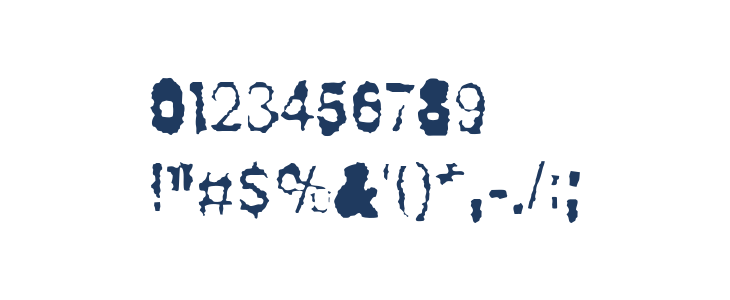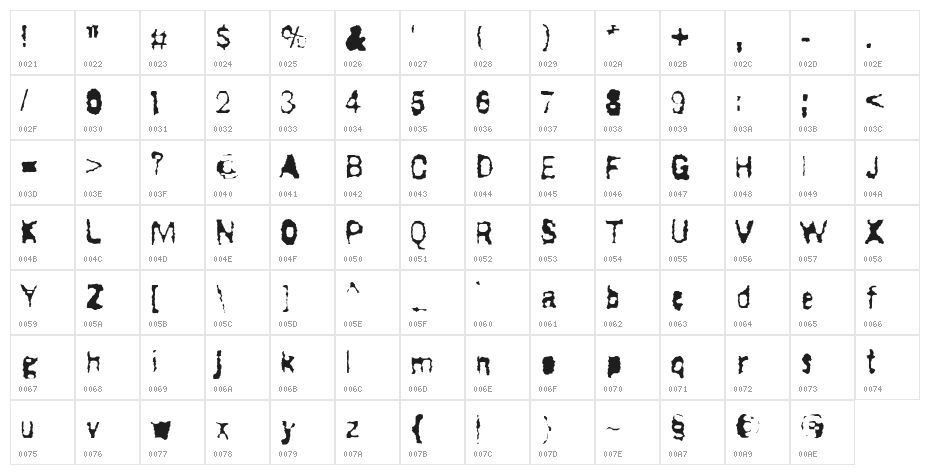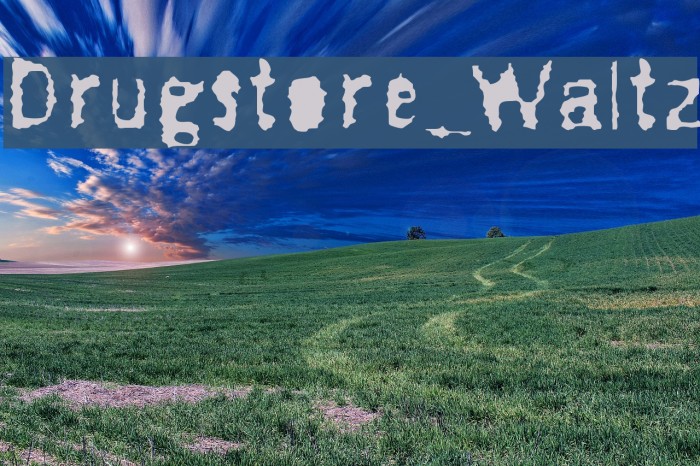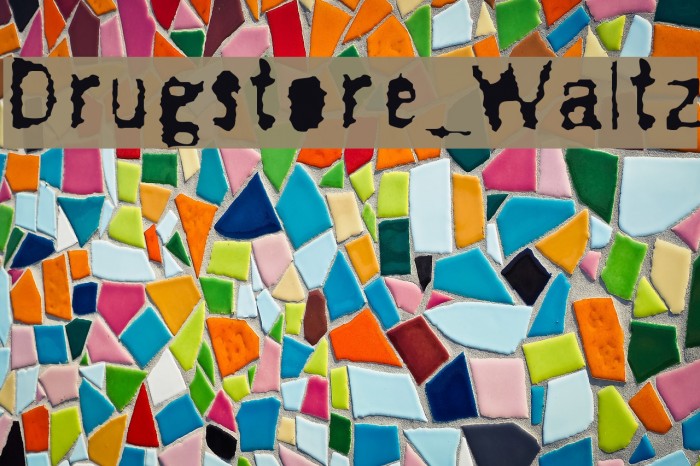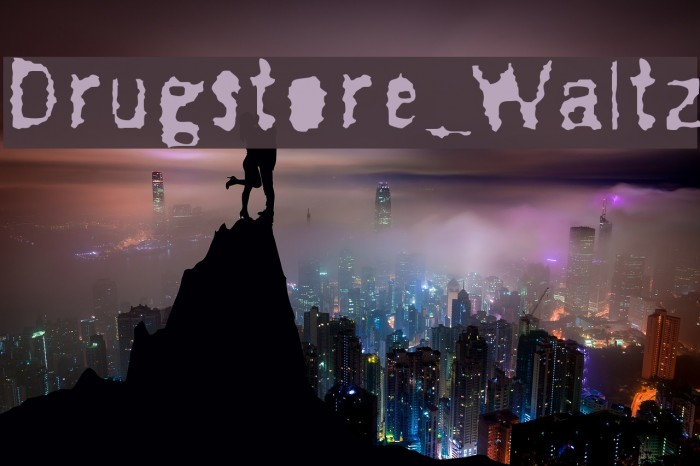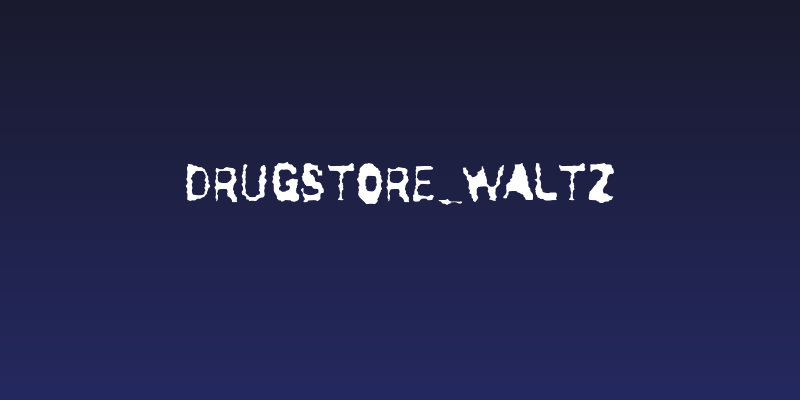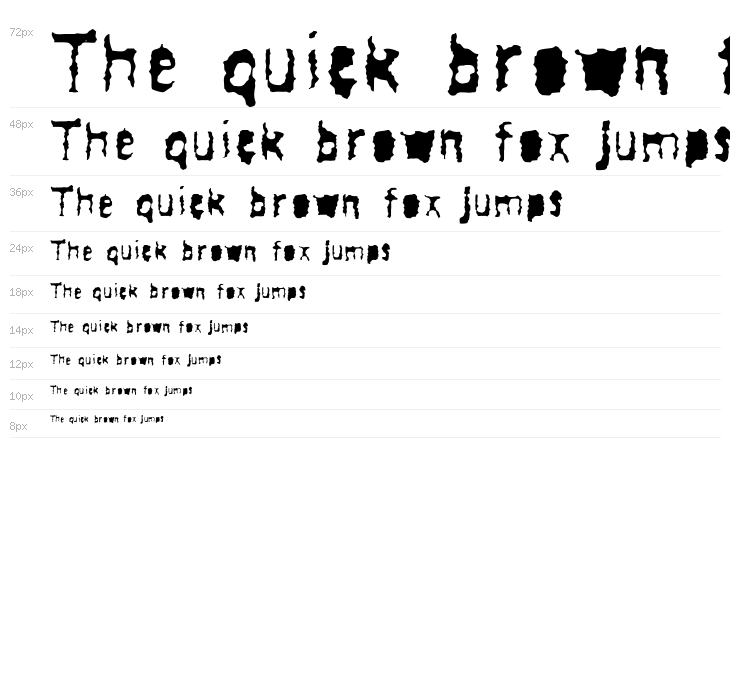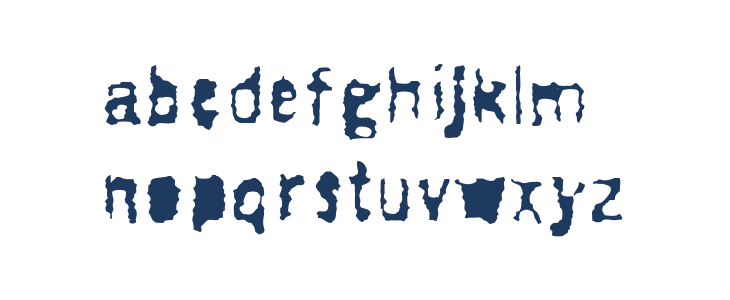
Drugstore_Waltz Font
Drugstore_Waltz Description
This font features a highly irregular and distressed appearance, reminiscent of decayed or eroded surfaces. The characters are bold and have a rough, jagged edge, giving them a unique, organic feel. The uppercase and lowercase letters maintain this rugged style, with varying thicknesses and uneven baselines, adding to the chaotic yet artistic aesthetic. Numbers and special characters follow the same design principles, ensuring consistency across all glyphs. The font's distinct look makes it ideal for projects that require a grunge or horror theme, as it evokes a sense of unease and rawness. Its unconventional style is not suited for body text but excels in creating impactful headlines or artistic designs.
| Proposed Projects | Album covers, horror movie posters, edgy branding, artistic projects, and event flyers. |